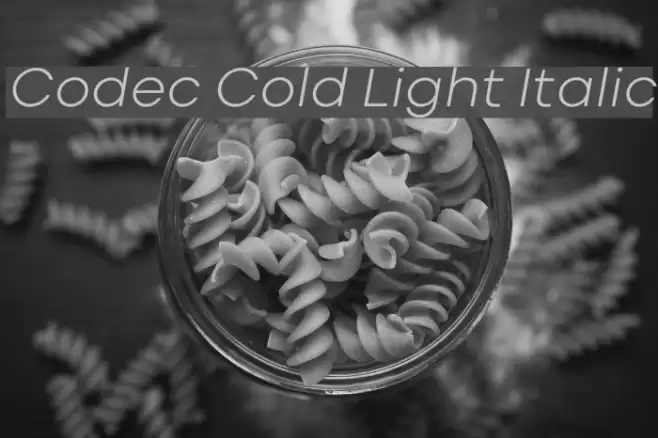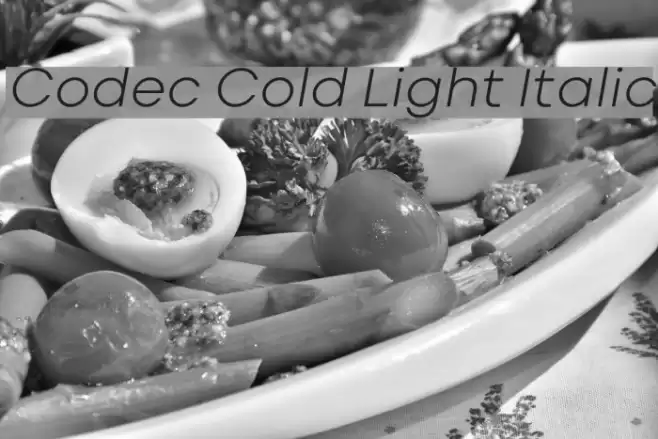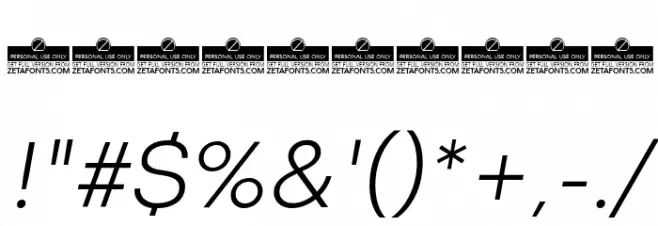
Codec Cold Light Italic Font
Codec Cold Light Italic Description
This font exhibits a sleek and modern aesthetic with a light and airy feel. Its italic style adds a sense of motion and elegance, making it suitable for contemporary design projects. The characters are well-proportioned with a consistent stroke width, contributing to its clean and minimalistic appearance. The font's design is versatile, allowing it to be used in various contexts while maintaining readability and style. Its subtle curves and smooth lines give it a sophisticated yet approachable look, ideal for both digital and print media.
A modern, light italic font with a sleek and minimalistic design from Uncategorized fonts.
- Proposed Projects: Ideal for branding, editorial design, web design, and advertising materials.